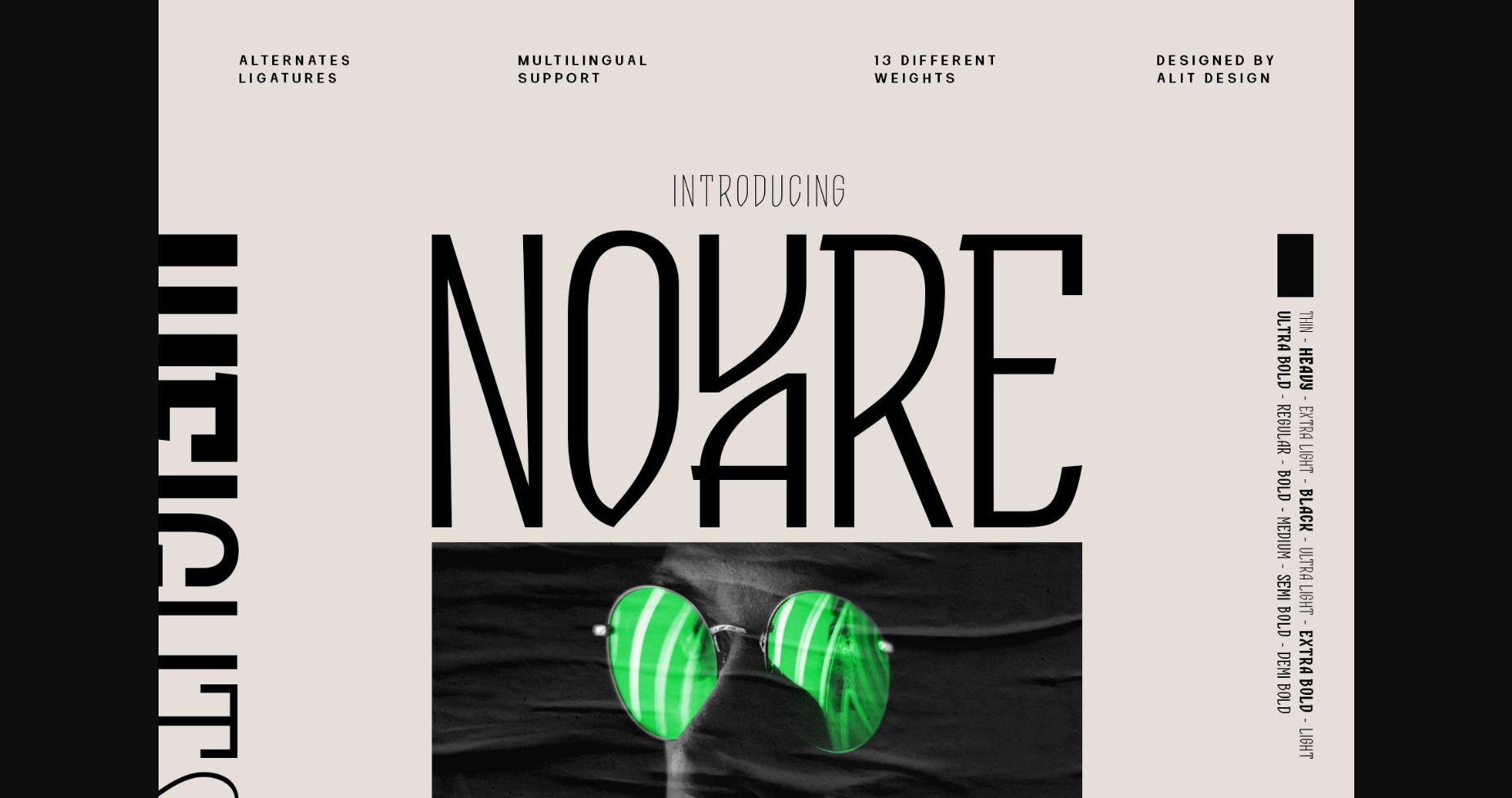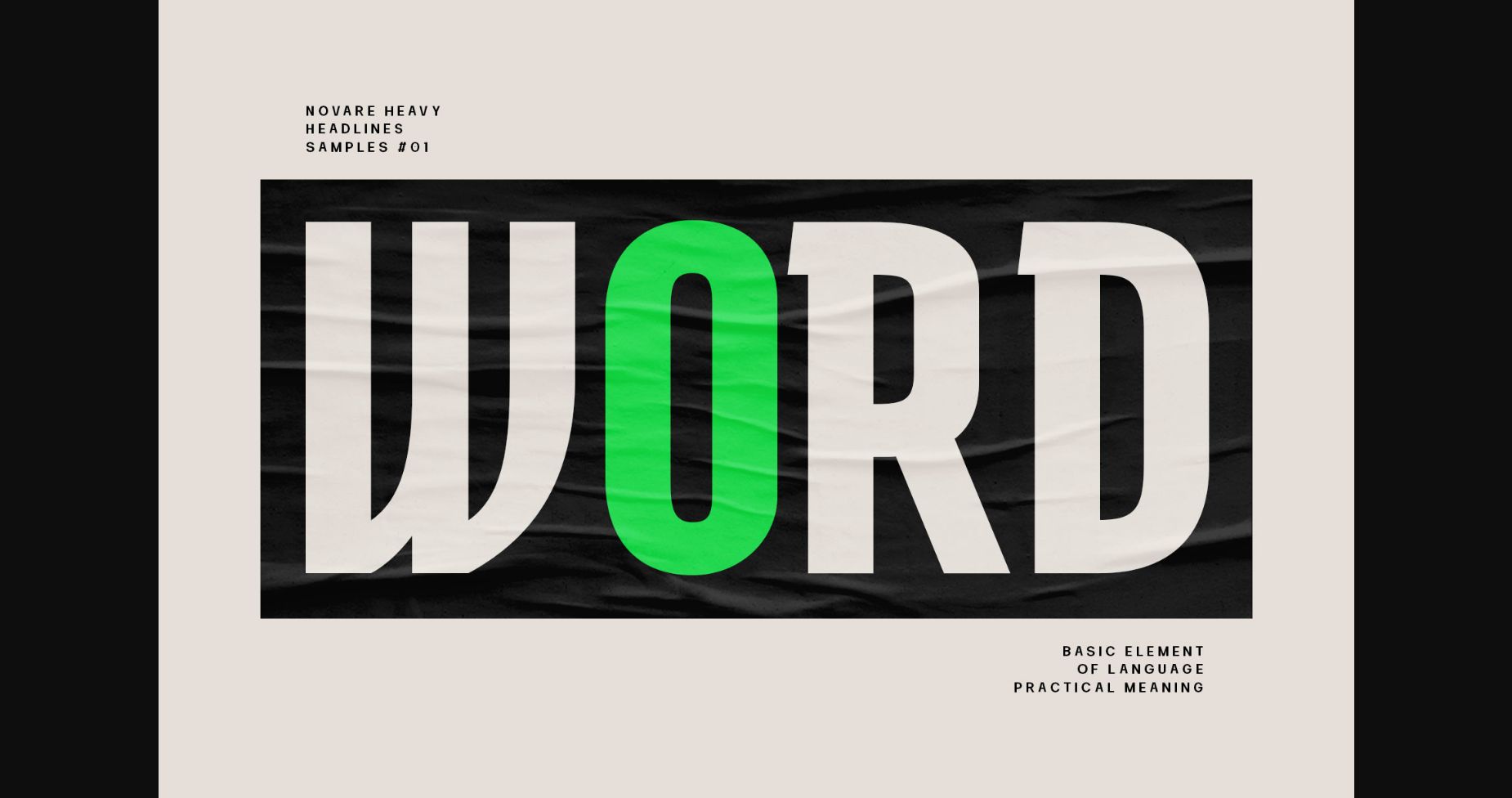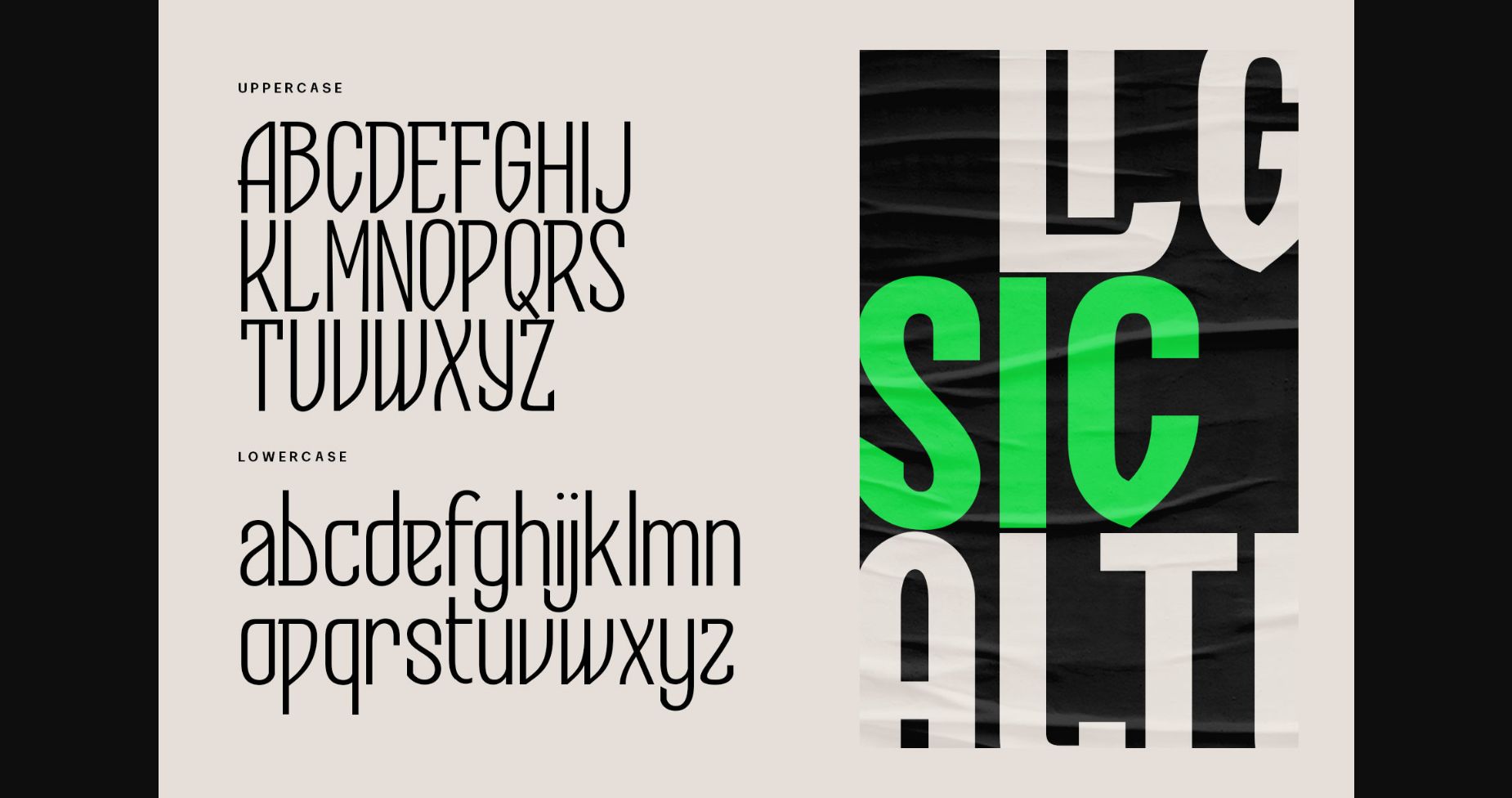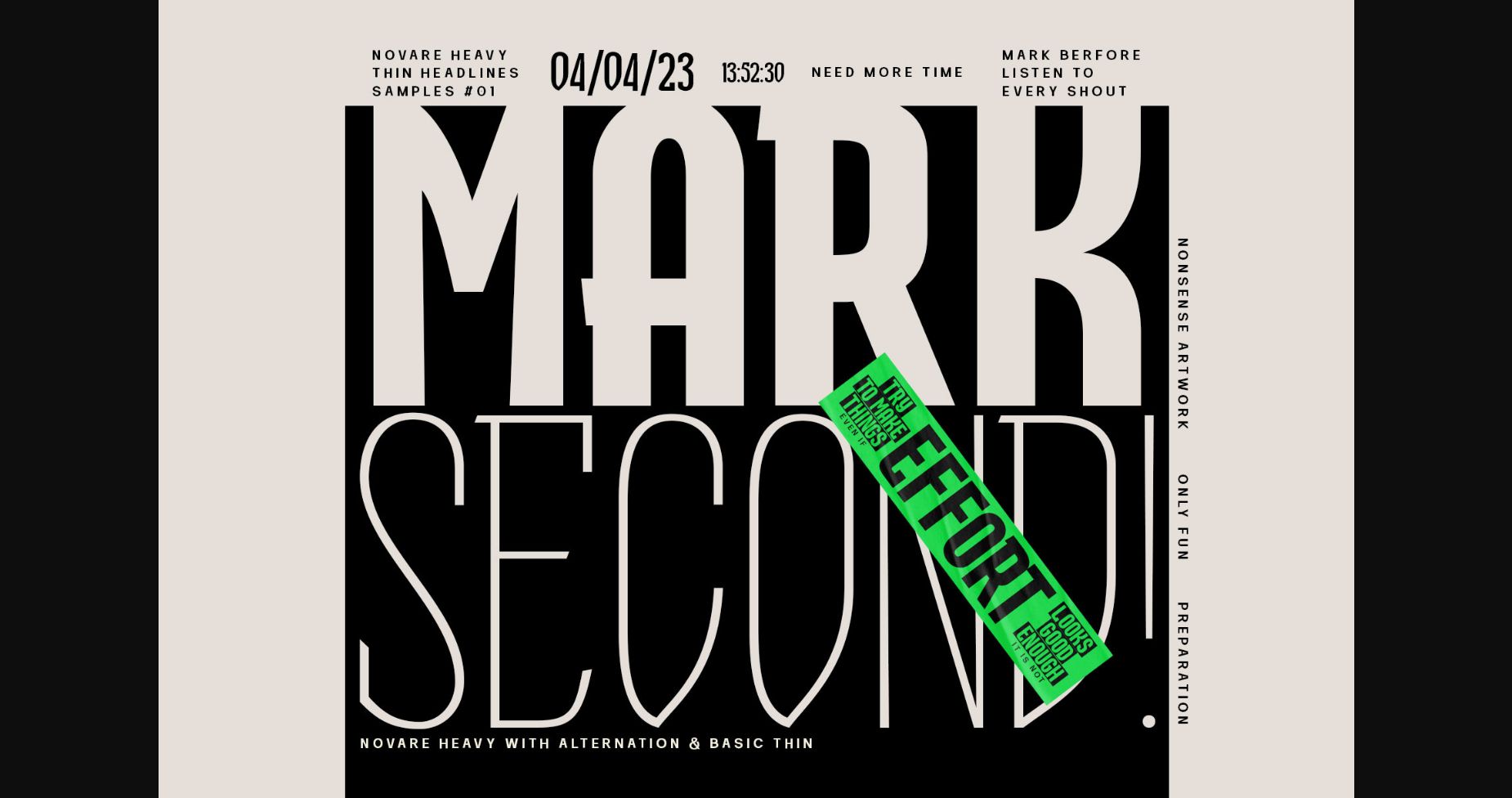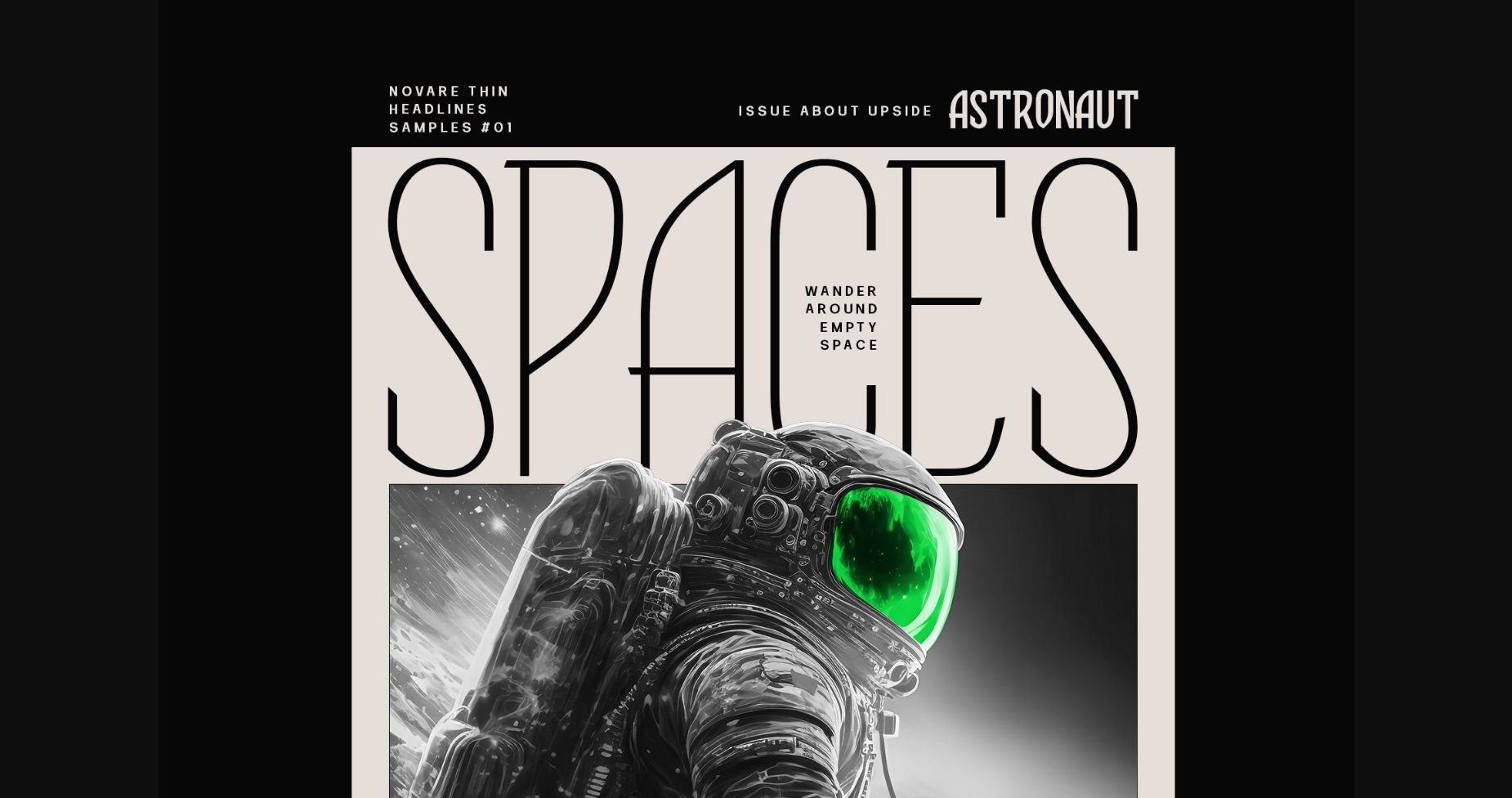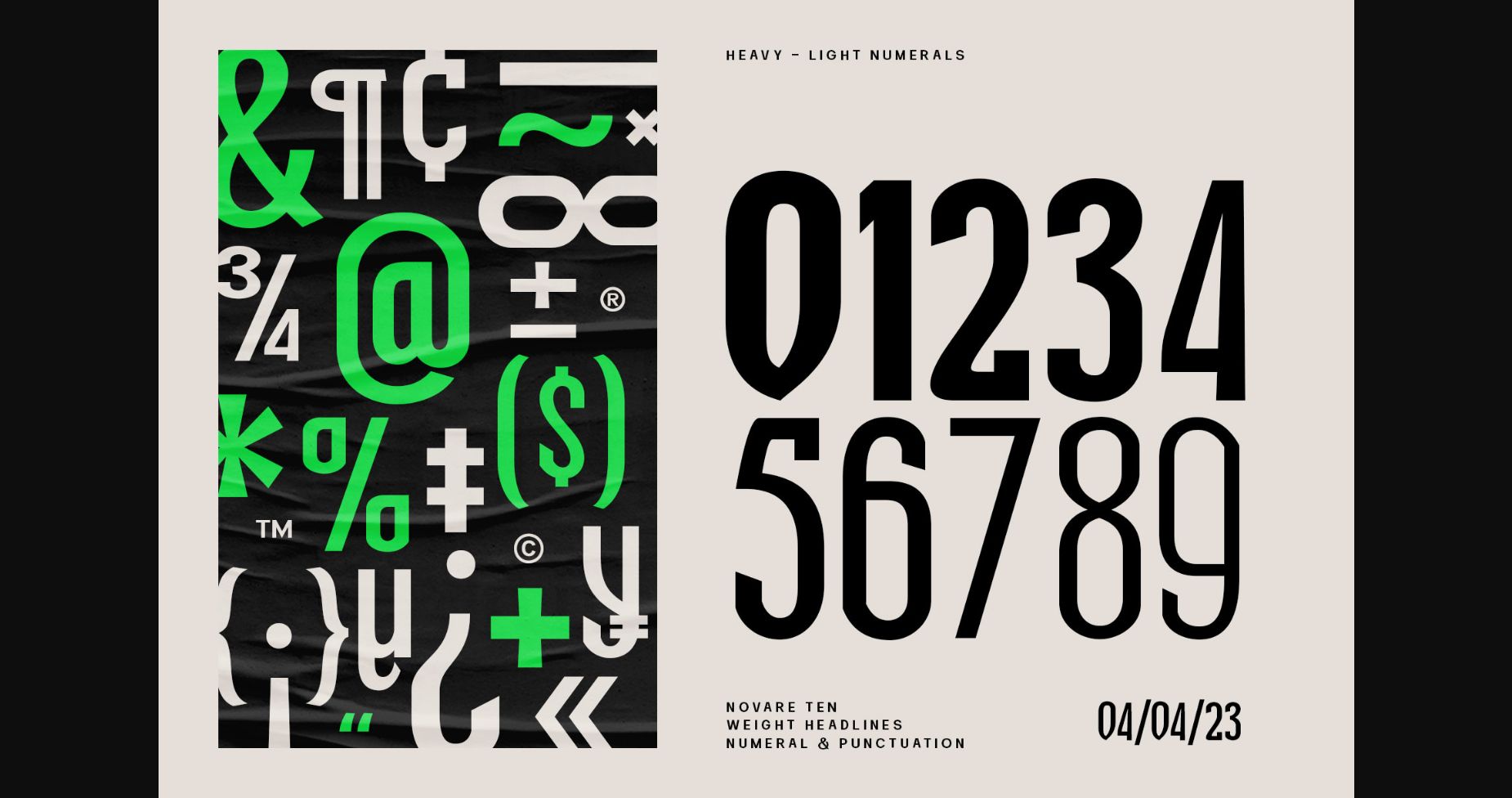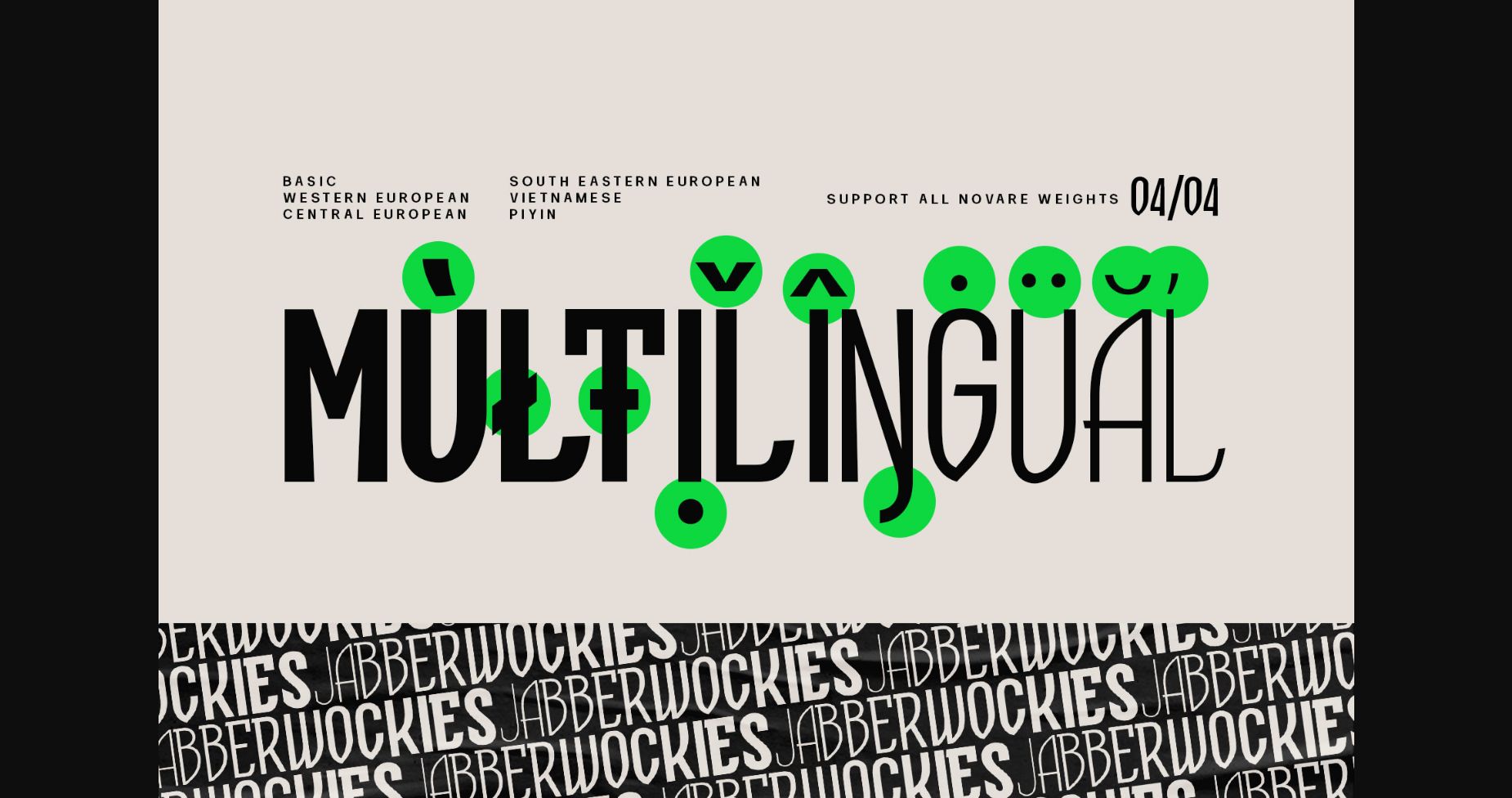
Novare Font
About Novare Font
Novare is a tech-inspired sans-serif font that features sleek lines and geometric shapes, giving it a modern and futuristic feel. With a clean and polished look, it is perfect for designs that require a sleek and professional aesthetic, such as technology or engineering-related projects.